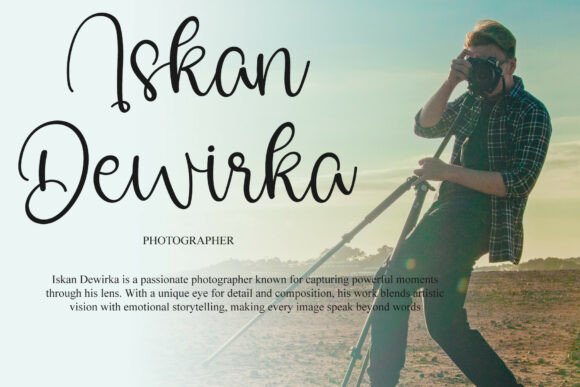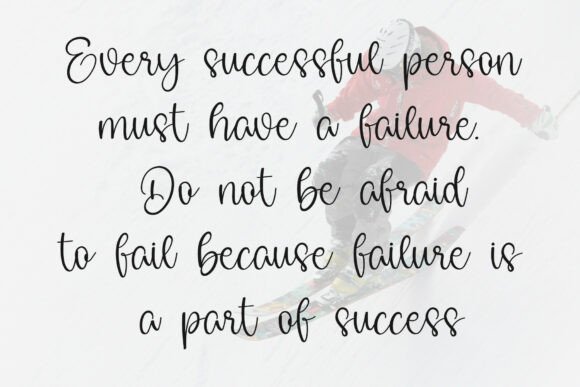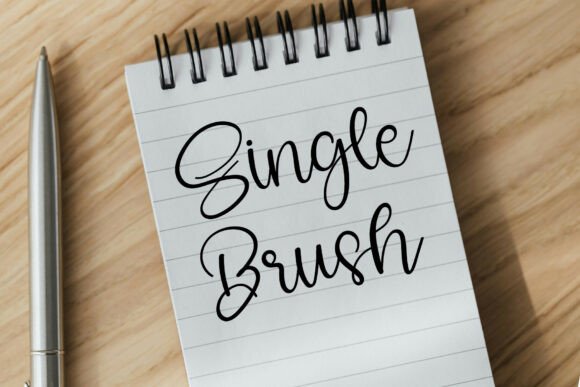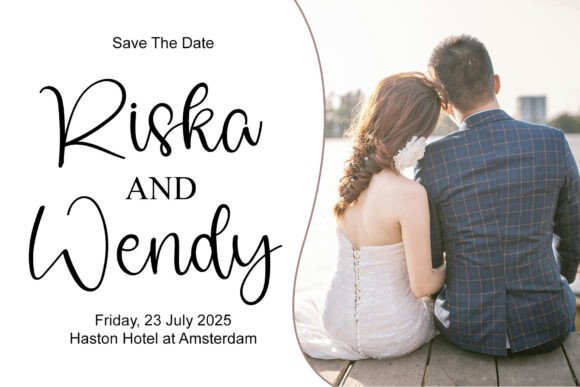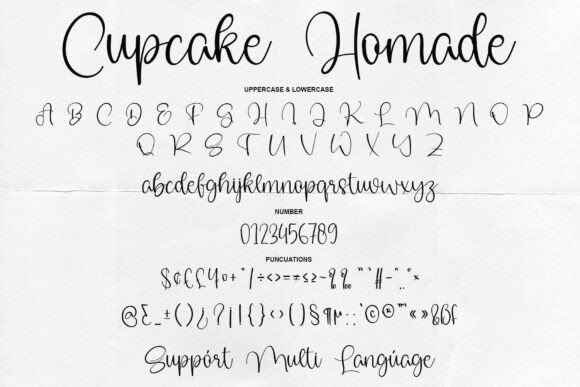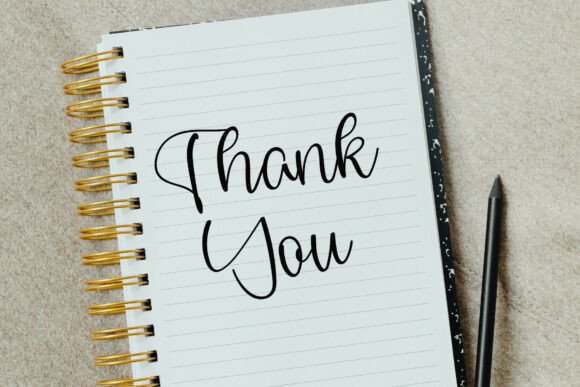
Cupcake Homemade Font: Elevate Your Designs with a Touch of Timeless Elegance
Are you a designer or crafter looking for a font that exudes style, sophistication, and a hint of playfulness? Look no further than the Cupcake Homemade Font. This stunning handwritten font is inspired by timeless classic calligraphy, yet boasts a contemporary atmosphere that will make your projects stand out. In this article, we’ll dive into the features and benefits of Cupcake Homemade, and explore how it can elevate your designs to new heights.
A Font that Balances Style and Versatility
Cupcake Homemade is a masterfully crafted font that strikes the perfect balance between style and versatility. Its handwritten charm and fluid strokes evoke a sense of warmth and approachability, making it perfect for a wide range of design applications. Whether you’re working on a branding project, packaging design, or crafting a beautiful stationery set, Cupcake Homemade is the perfect choice.
One of the standout features of Cupcake Homemade is its impeccable form. The font’s designer has carefully crafted each letter and glyph to ensure that they are balanced and harmonious, creating a beautiful visual flow that will enhance the beauty of your projects.
PUA Encoding: Unlock a World of Creative Possibilities
Cupcake Homemade is PUA (Private Use Area) encoded, which means that you can access a vast array of glyphs and ligatures with ease. This feature opens up a world of creative possibilities, allowing you to experiment with different typography styles and create truly unique designs.
With PUA encoding, you can easily access alternative characters, swashes, and other special glyphs using your software’s Glyphs panel or Character Map. This level of flexibility makes Cupcake Homemade an excellent choice for designers who want to push the boundaries of typography and create something truly special.
Cupcake Homemade is an excellent choice for designers and crafters who want to add a touch of elegance and sophistication to their projects. Whether you’re working on:
• Branding and packaging design
• Stationery and greeting cards
• Web design and digital marketing materials
• Crafting and DIY projects
Cupcake Homemade is the perfect font to help you achieve your creative goals. Its versatility and style make it an excellent addition to any design library, and its PUA encoding ensures that you can experiment with different typography styles to create something truly unique.
Tips for Using Cupcake Homemade in Your Designs
To get the most out of Cupcake Homemade, here are a few tips to keep in mind:
• Experiment with different font sizes and styles to create visual hierarchy and emphasis.
• Use the font’s glyphs and ligatures to add a touch of personality and whimsy to your designs.
• Pair Cupcake Homemade with other fonts to create a unique and eye-catching typography style.
• Don’t be afraid to get creative and try out new and innovative design ideas.
In conclusion, Cupcake Homemade Font is a stylish and versatile handwritten font that is perfect for designers and crafters who want to add a touch of timeless elegance to their projects. With its impeccable form, PUA encoding, and beautiful handwritten charm, Cupcake Homemade is an excellent choice for a wide range of design applications.